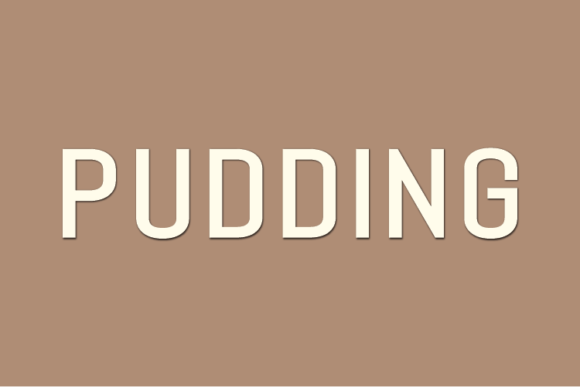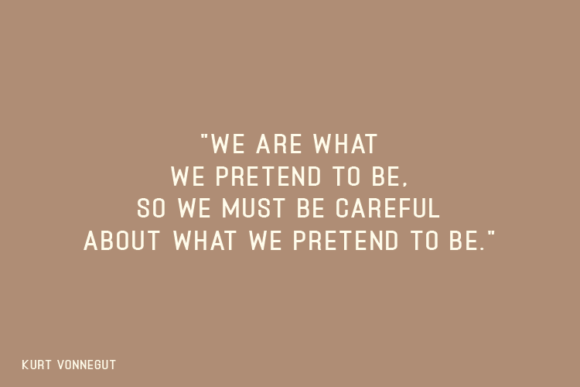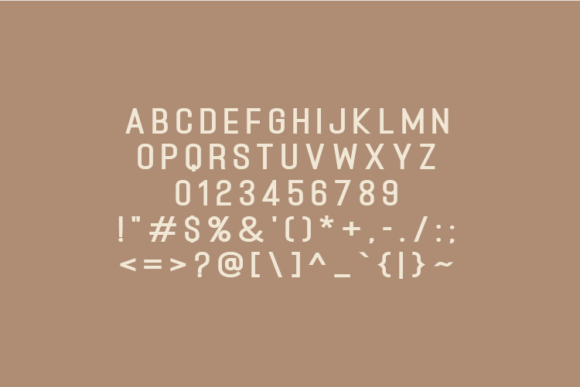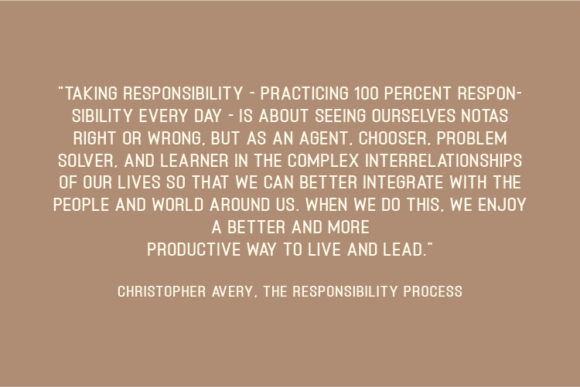
Pudding Font: A Modern Sans Serif for Elegant Logo Design
About the Pudding Font
Explore the possibilities with Pudding Font, a font that offers both beauty and functionality. Introducing Pudding, a modern, classy sans serif typeface.
An extremely versatile font, perfect for logos, weddings, invitations, quotes, advertisements, print, magazines, and more!
Pudding’s clean lines and slightly rounded terminals lend it a friendly, modern feel, making it ideal for branding projects requiring a touch of elegance without being overly formal. It excels in headlines, short-form text, and logos, showcasing its versatility across various applications like posters and social media graphics. However, its delicate stroke weight isn’t suited for extended body text or UI elements where readability at smaller sizes is crucial.
Pair Pudding with a contrasting serif like Playfair Display for a sophisticated, classic feel, or a geometric sans-serif like Montserrat for a contemporary, balanced aesthetic. A playful script font such as Great Vibes could be used for emphasis or smaller text elements within a branding project, creating visual interest without clashing with Pudding’s inherent personality.
Avoid using Pudding for situations demanding high readability in long-form content or small-scale applications. Its strength lies in its ability to make a statement, not in its ability to convey large amounts of easily-digested information.
Pudding Font Usage Examples
Pudding Font Example